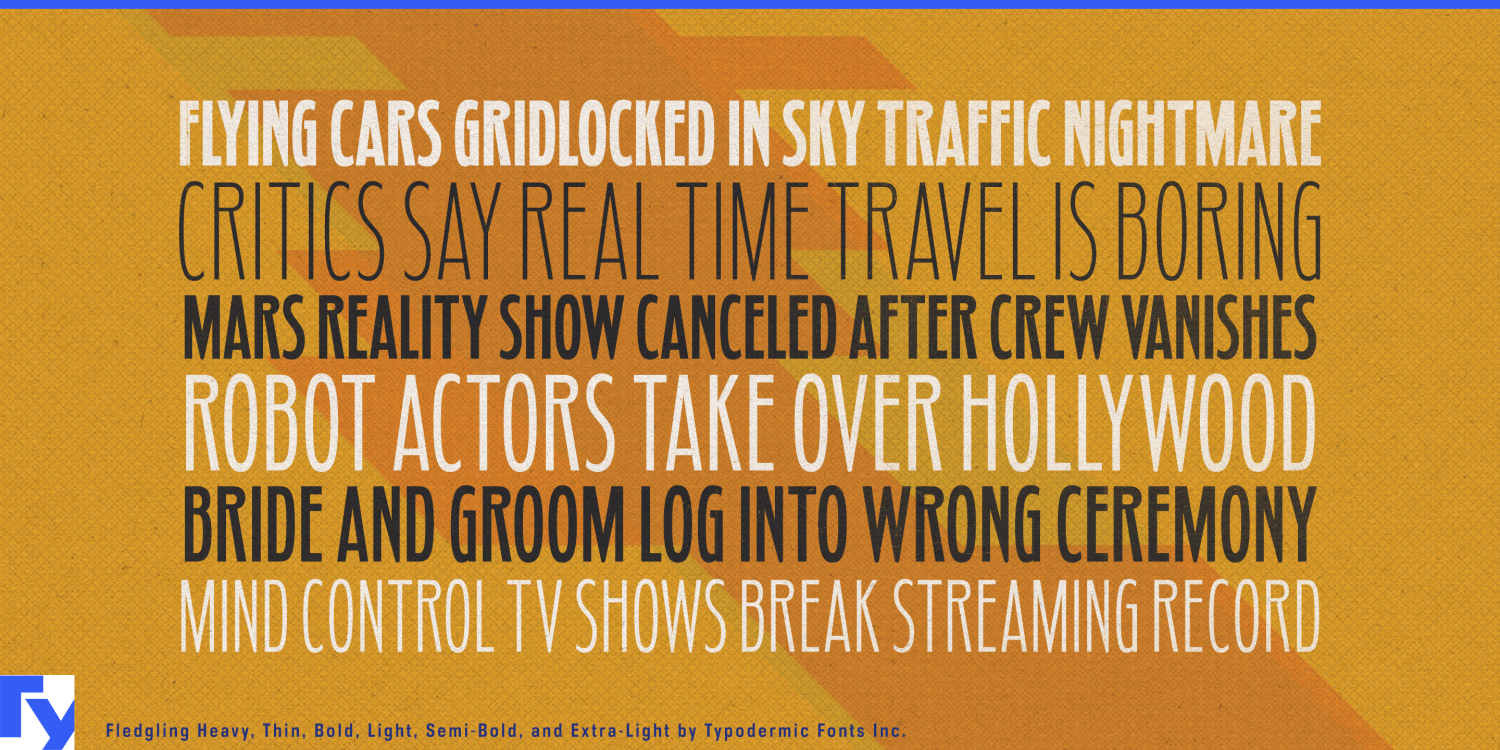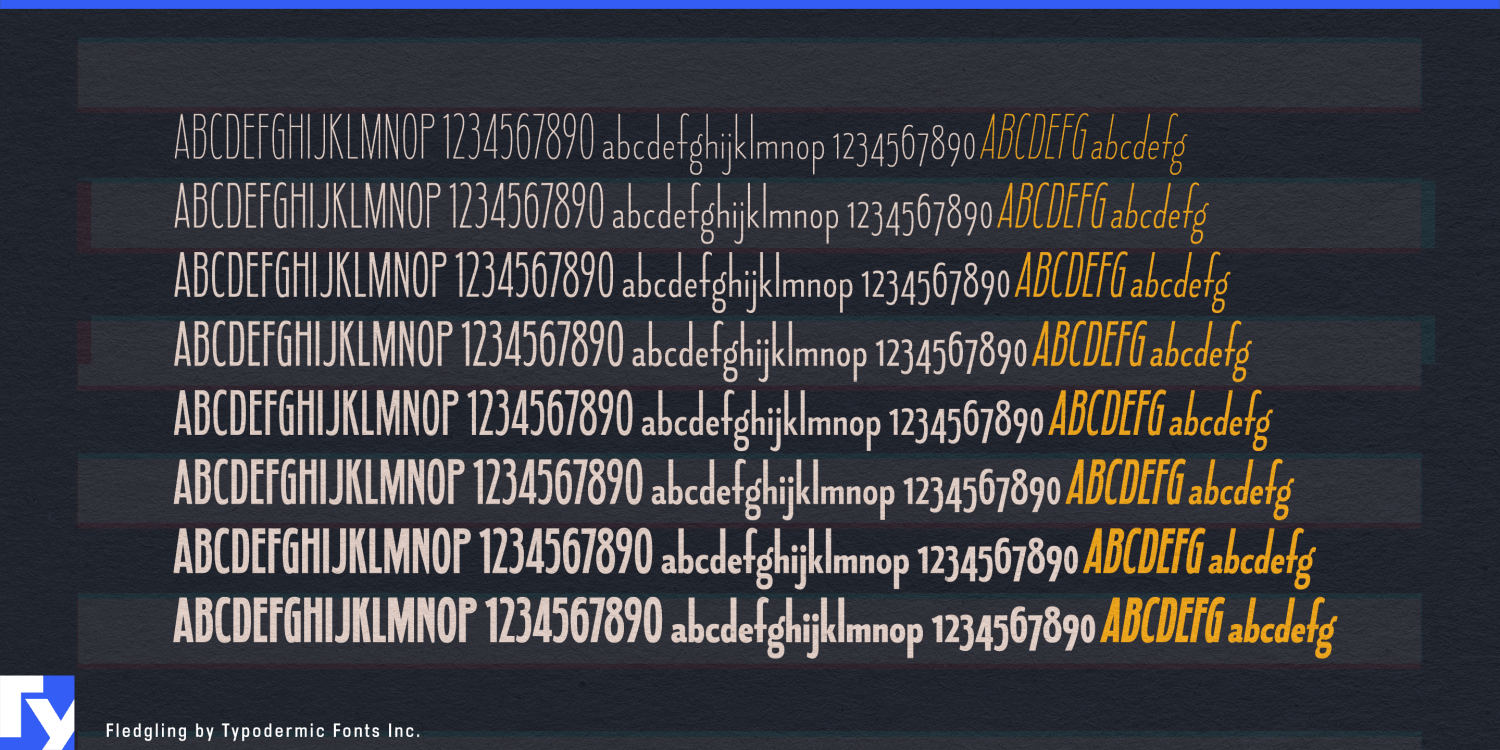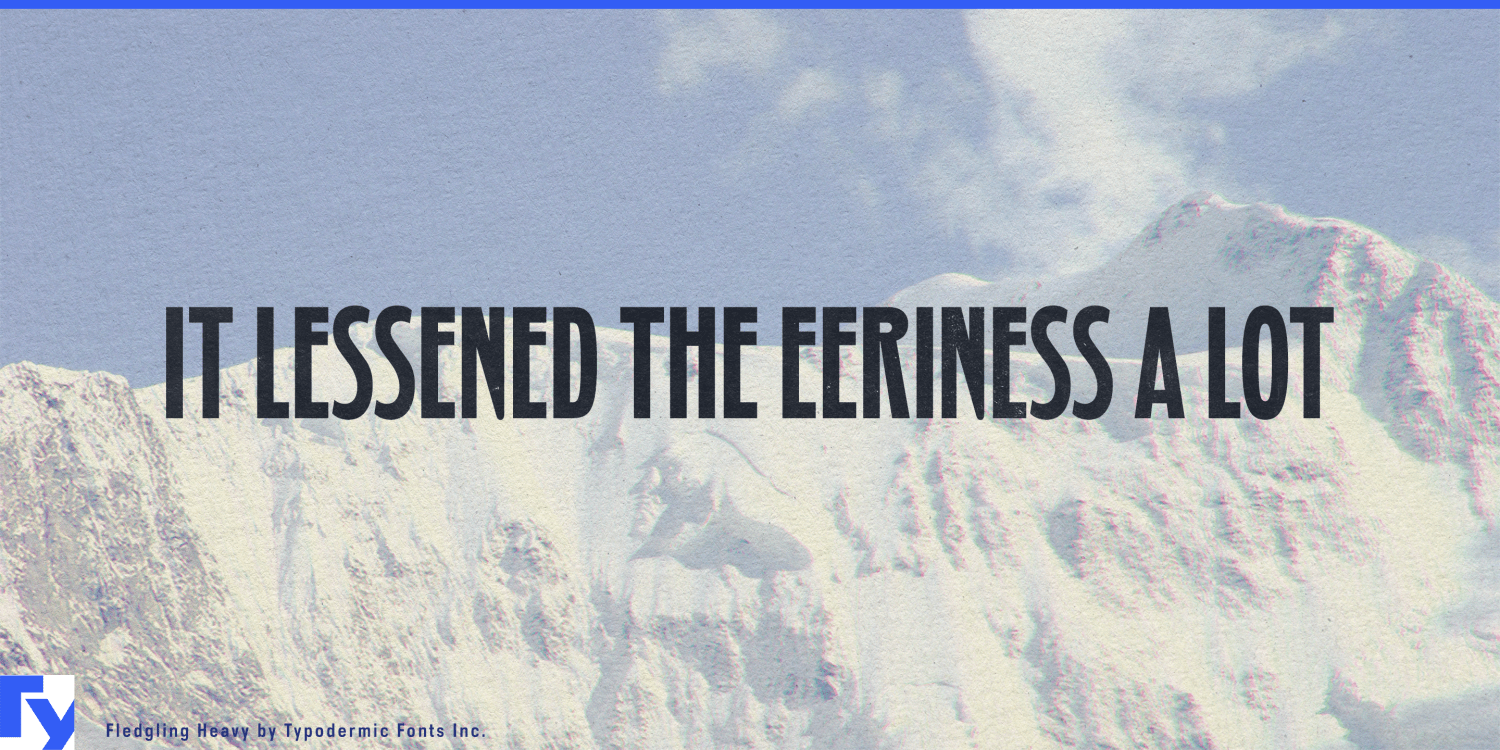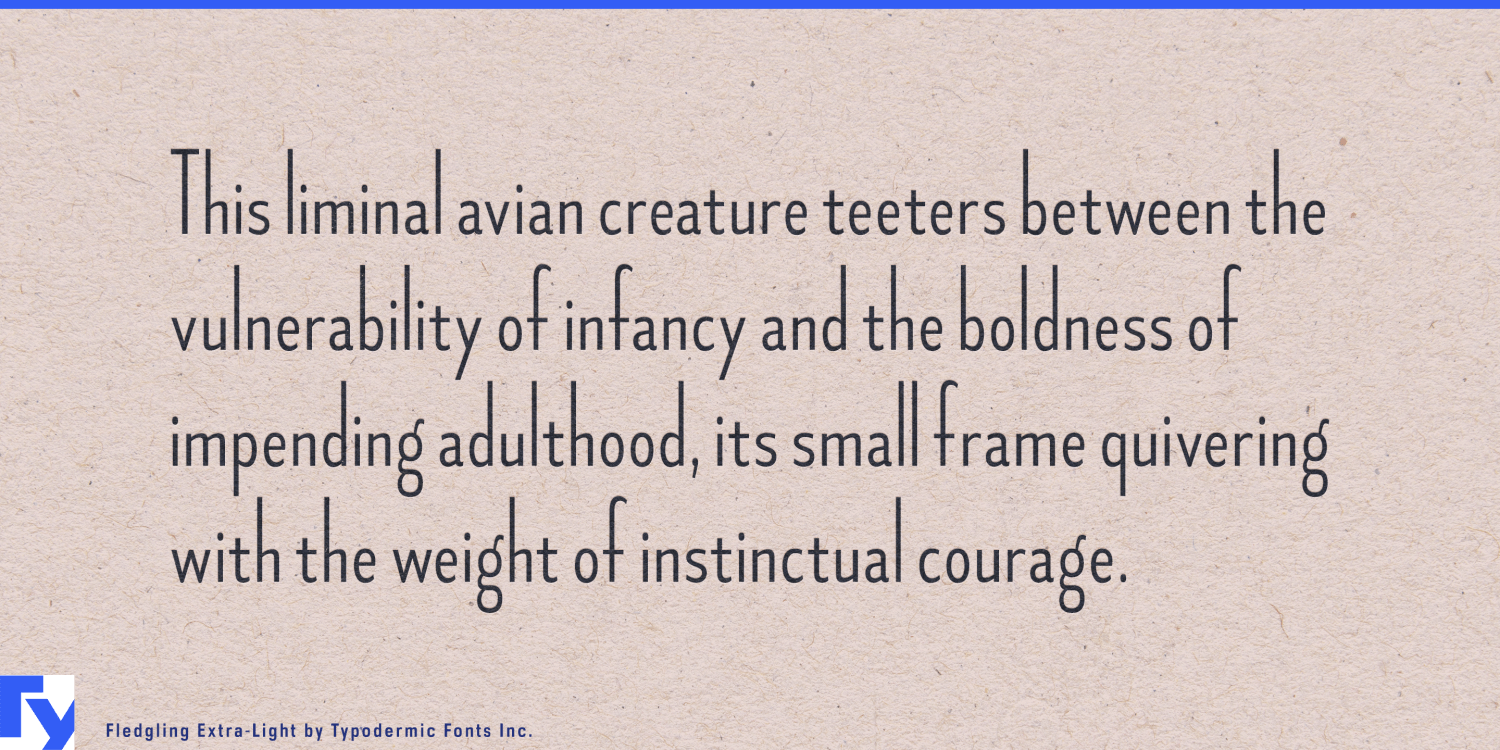
Enter the world of Fledgling, a sans-serif typeface that redefines elegance in the digital age. With its high waist and low x-height, Fledgling doesn’t just occupy space—it sculpts it, creating a silhouette as distinctive as it is refined.…